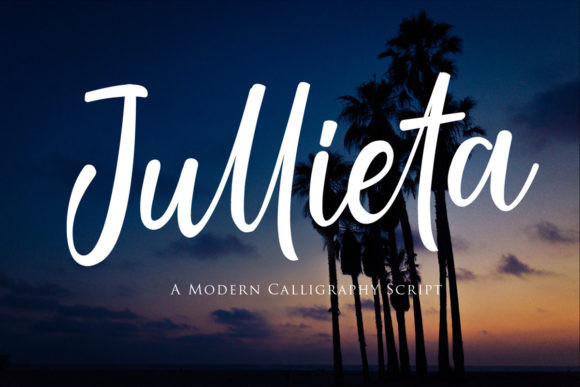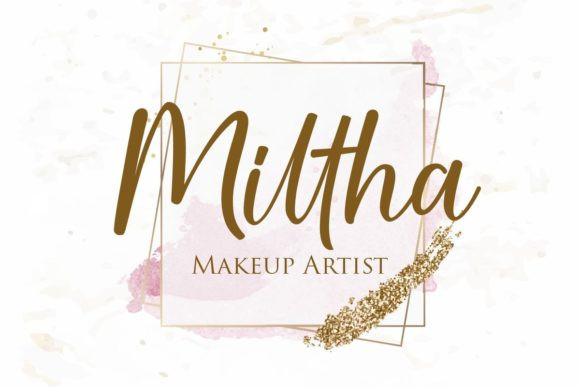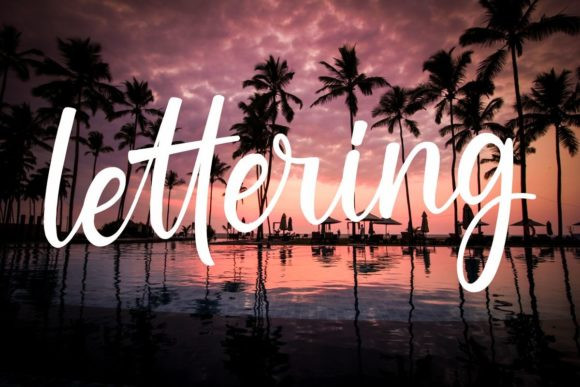
Jullieta Font
Jullieta FontJullieta is a sweet and cursive handwritten font. This gentle font will look gorgeous on a variety of design ideas. It will add a joyful and romantic touch to each of your projects!